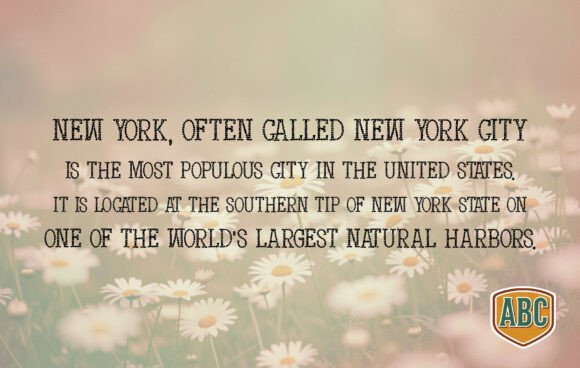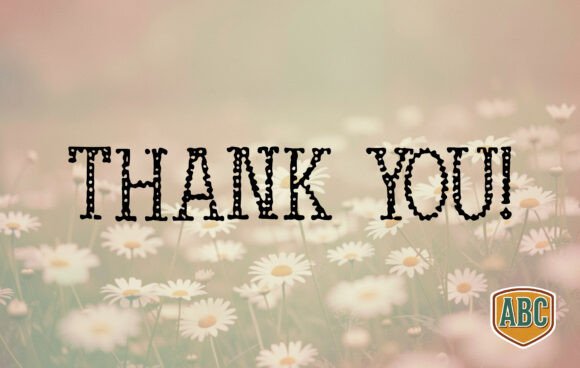
Introducing the Daisy Font: A Whimsical Typeface for Organic and Artistic Projects
Step into a world of organic texture with the Daisy font, a decorative display typeface that features a unique, “bubbly” or “holey” texture within each letterform. This charming font is perfect for designers and crafters looking to add a touch of whimsy and imperfection to their projects. In this article, we’ll explore the characteristics of the Daisy font, its ideal uses, and how to make the most of its distinctive features.
A Unique Texture for a Distinctive Look
The Daisy font boasts a one-of-a-kind texture that sets it apart from other typefaces. Each letterform features a “bubbly” or “holey” texture, giving it a organic and imperfect feel. This texture makes the Daisy font act as a visual texture itself, making it ideal for large-scale headlines where the intricate details can truly shine.
Ideal for Garden-Themed Events and Eco-Friendly Branding
The Daisy typeface is perfect for garden-themed events, eco-friendly branding, and artistic projects that celebrate imperfection. Its organic texture and whimsical feel evoke a sense of growth and artisanal craft, making it a great fit for:
- Springtime promotions
- Organic food packaging
- Creative workshop flyers
- Garden-themed events and festivals
- Eco-friendly branding and marketing materials
Pairing the Daisy Font with Simple Backgrounds
Because of its distinct character, the Daisy typeface pairs best with simple, solid-colored backgrounds to avoid visual clutter. This allows the intricate details of the font to take center stage and create a striking visual effect. When pairing the Daisy font with a background, consider the following:
- Use a solid color background to create contrast and make the font stand out
- Avoid busy or patterned backgrounds that may compete with the font’s texture
- Experiment with different colors to find the perfect match for your project
Bridging Vintage Charm and Modern Eccentricity
The Daisy font is a standout choice for anyone looking for a “distressed” yet “pretty” look that bridges the gap between vintage charm and modern eccentricity. Its unique texture and whimsical feel make it a great fit for designers and crafters who want to add a touch of personality to their projects.
Whether you’re looking to create a vintage-inspired design or a modern, eclectic look, the Daisy font is a versatile typeface that can adapt to a variety of styles and themes.
Tips for Using the Daisy Font
Here are some tips for getting the most out of the Daisy font:
- Use it for large-scale headlines where the intricate details can truly shine
- Experiment with different colors and backgrounds to find the perfect match for your project
- Pair it with simple, solid-colored backgrounds to avoid visual clutter
- Use it to add a touch of whimsy and imperfection to your designs
The Daisy font is a unique and versatile typeface that’s perfect for designers and crafters looking to add a touch of organic texture and whimsy to their projects. Its distinctive “bubbly” or “holey” texture makes it a great fit for garden-themed events, eco-friendly branding, and artistic projects that celebrate imperfection.
With its ability to bridge vintage charm and modern eccentricity, the Daisy font is a standout choice for anyone looking for a “distressed” yet “pretty” look. So why not give it a try and see how it can add a touch of personality to your next design project?